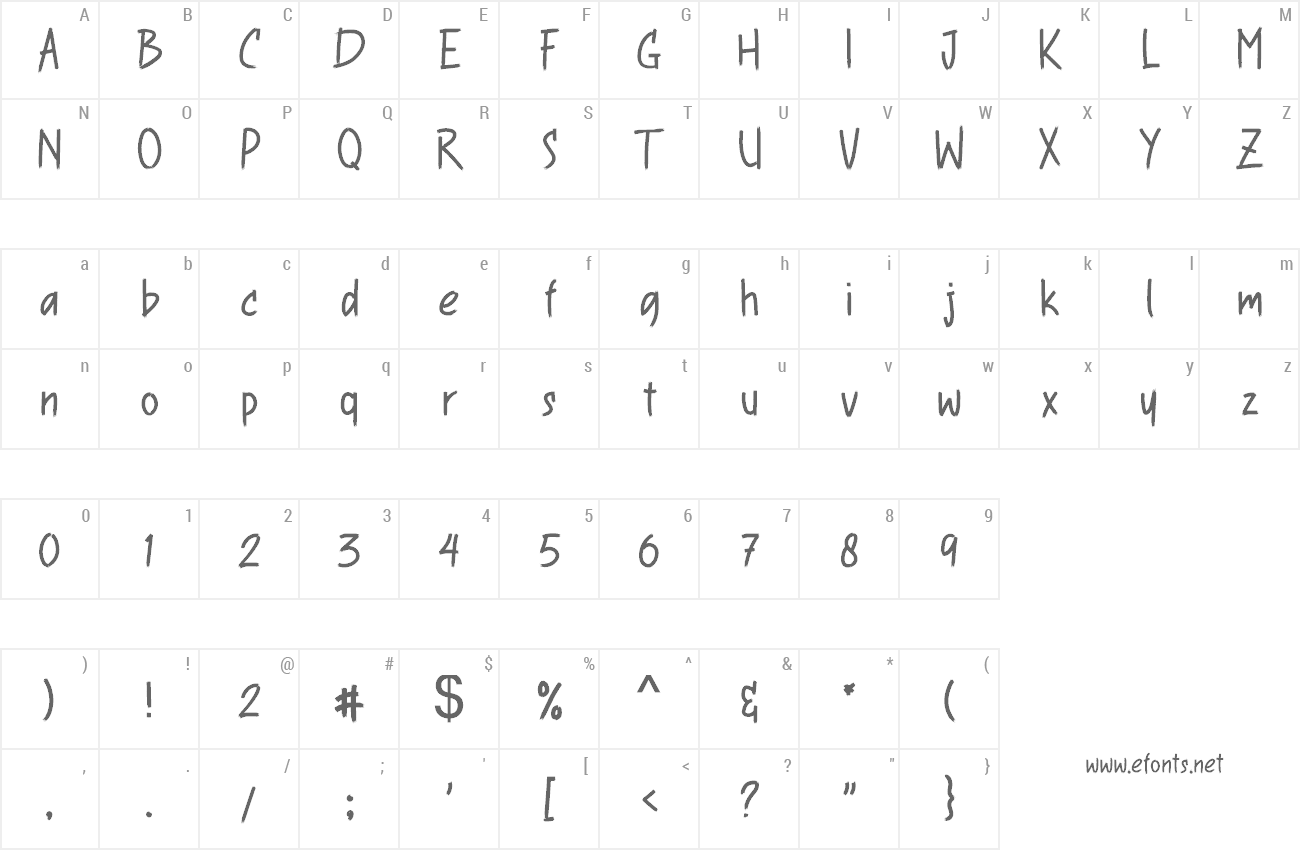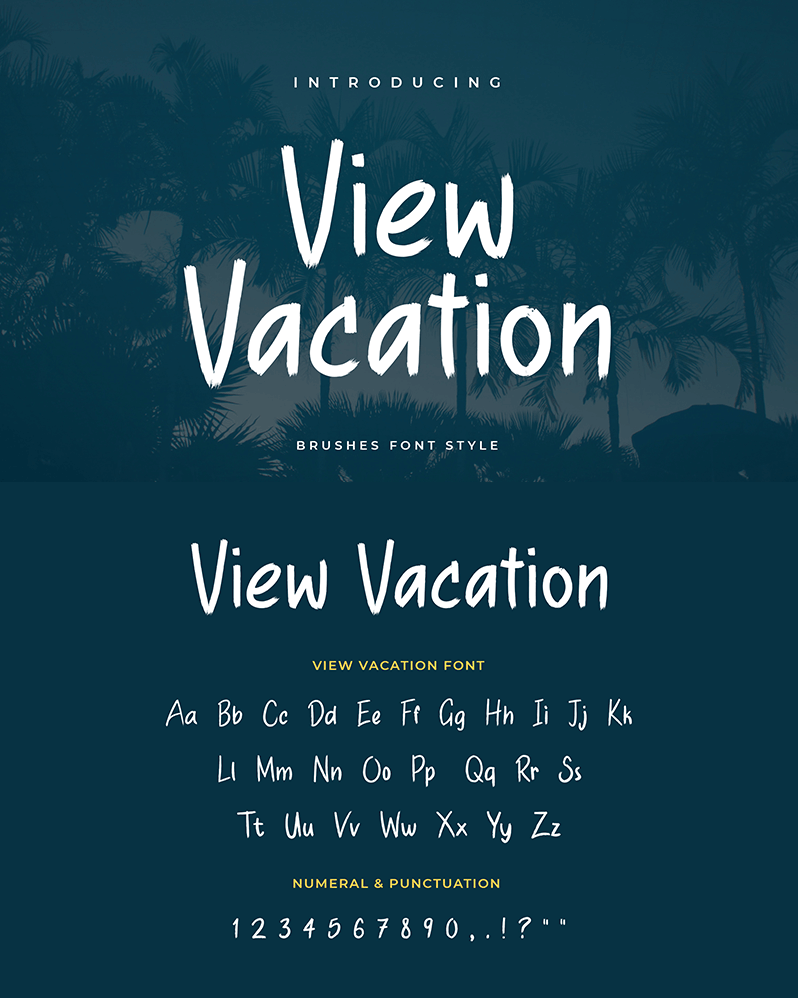
View Vacation Brush is a type of modern brush font. In combination and design, this font looks challenging and looks natural. Having grunge and textured paint effect and a constant and balanced font combination makes this font look perfect and elegant for all types of projects, products, and designs such as branding, logos, e, T-shirts, product packaging, invitations, magazines, quotes, leaflets, posters, headlines, badges, labels, packaging design, etc. You can buy full license from our store for more our fonts: https://uicreative.net/products/fonts-view-vacation-brush |